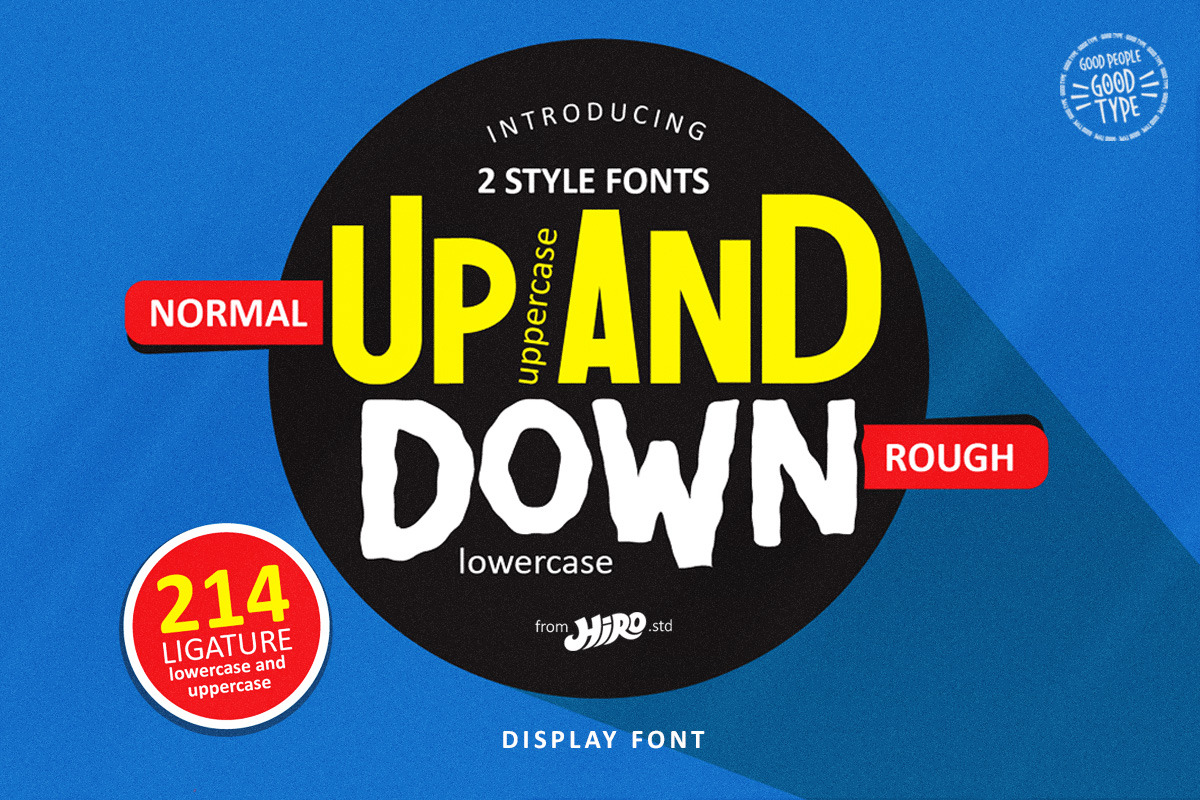
Up and Down - Display Font
Up and Down is a Display Font.
This font describes about fun, dynamic, rough, headline, pleasure, humanist, easy going, and easy to use.
- Support Ligatures
USE Up and Down works great in any branding materials, logotype, poster, print etc.